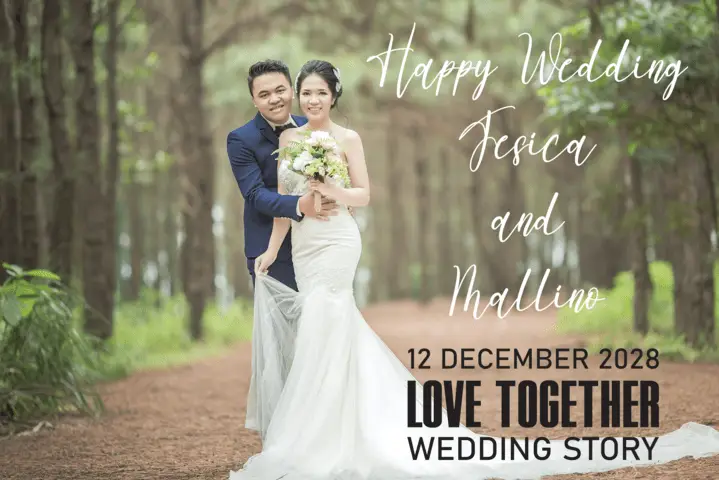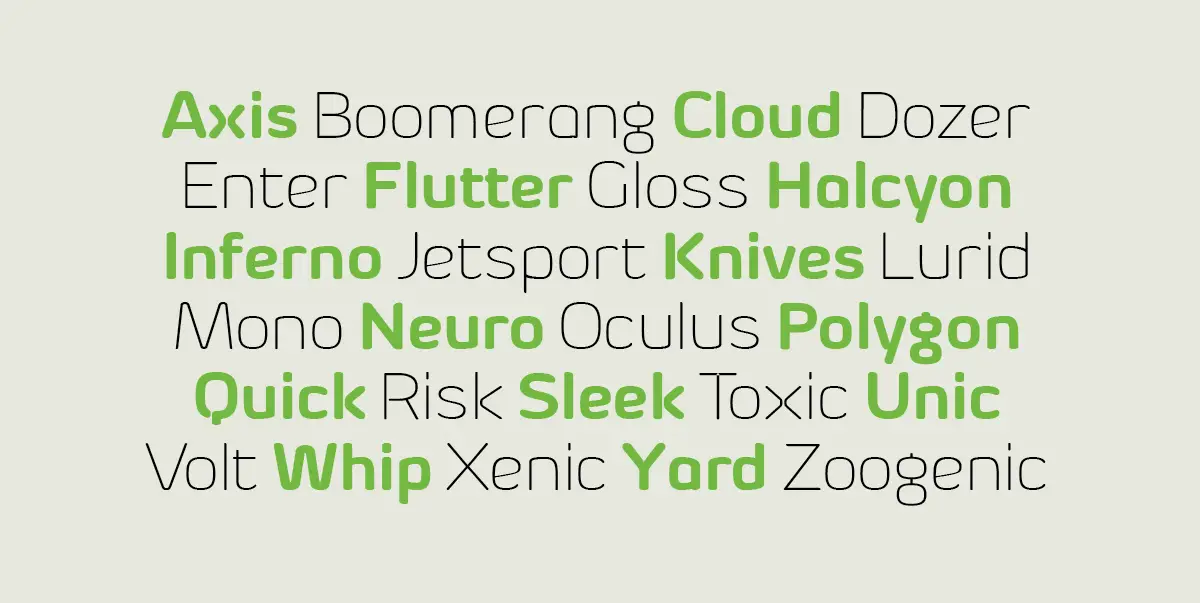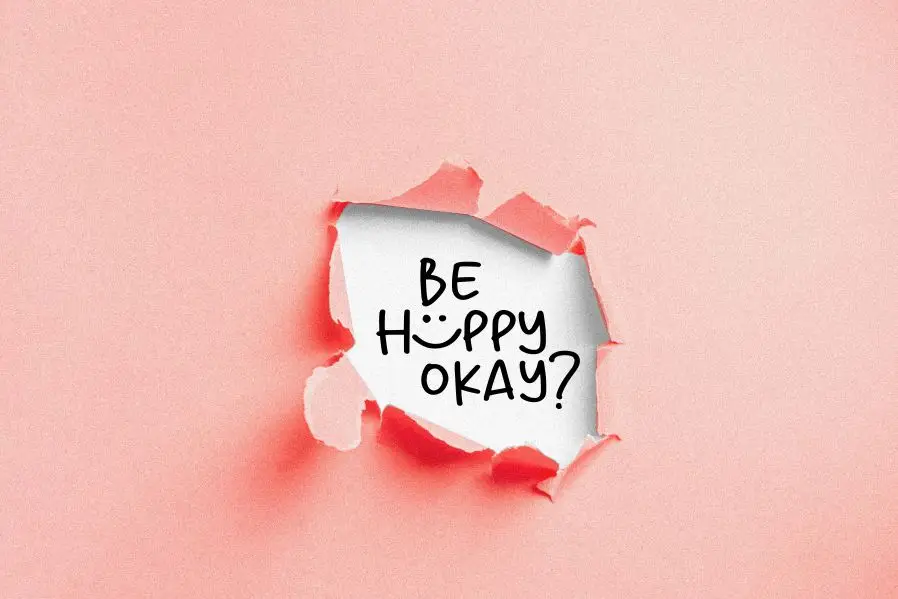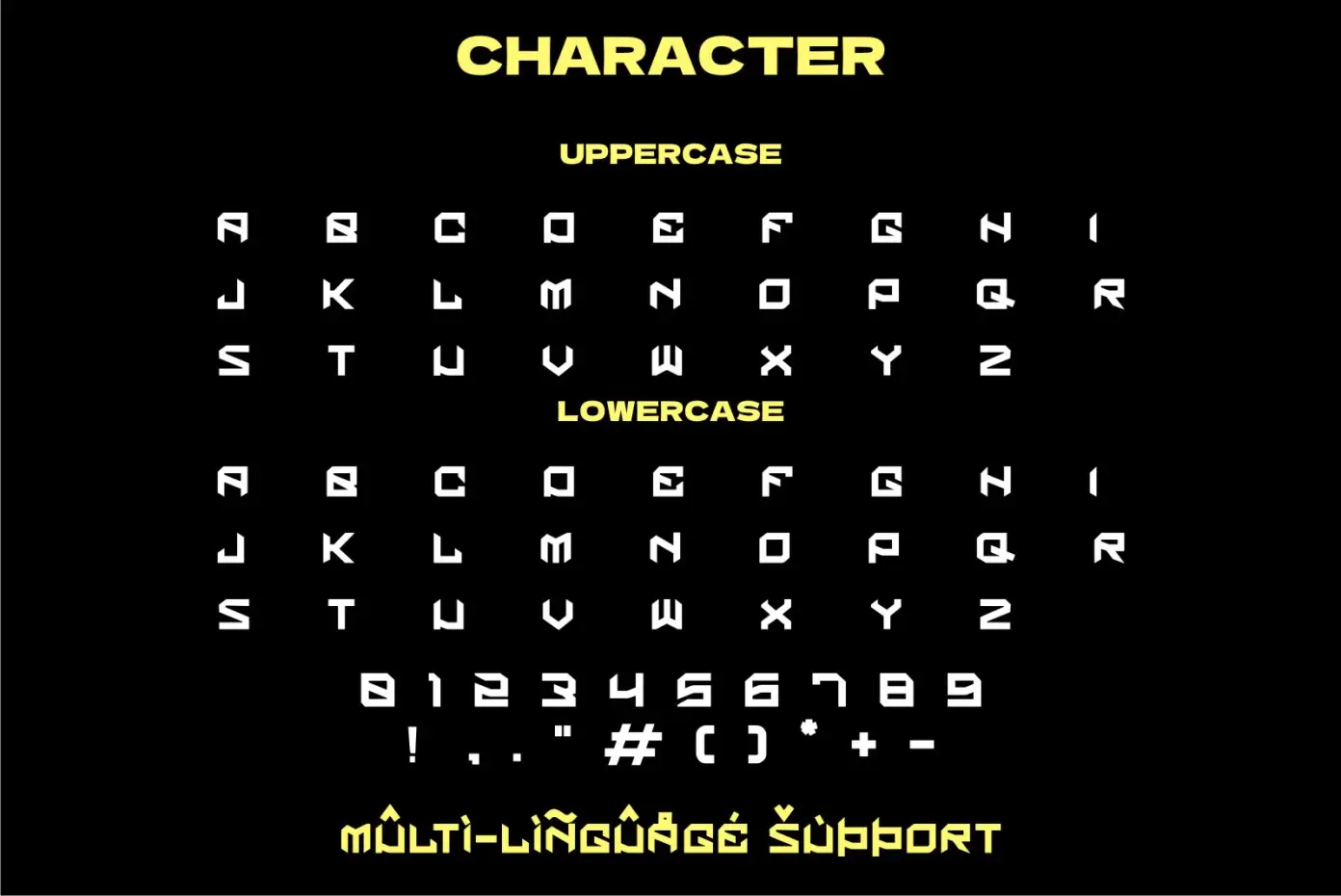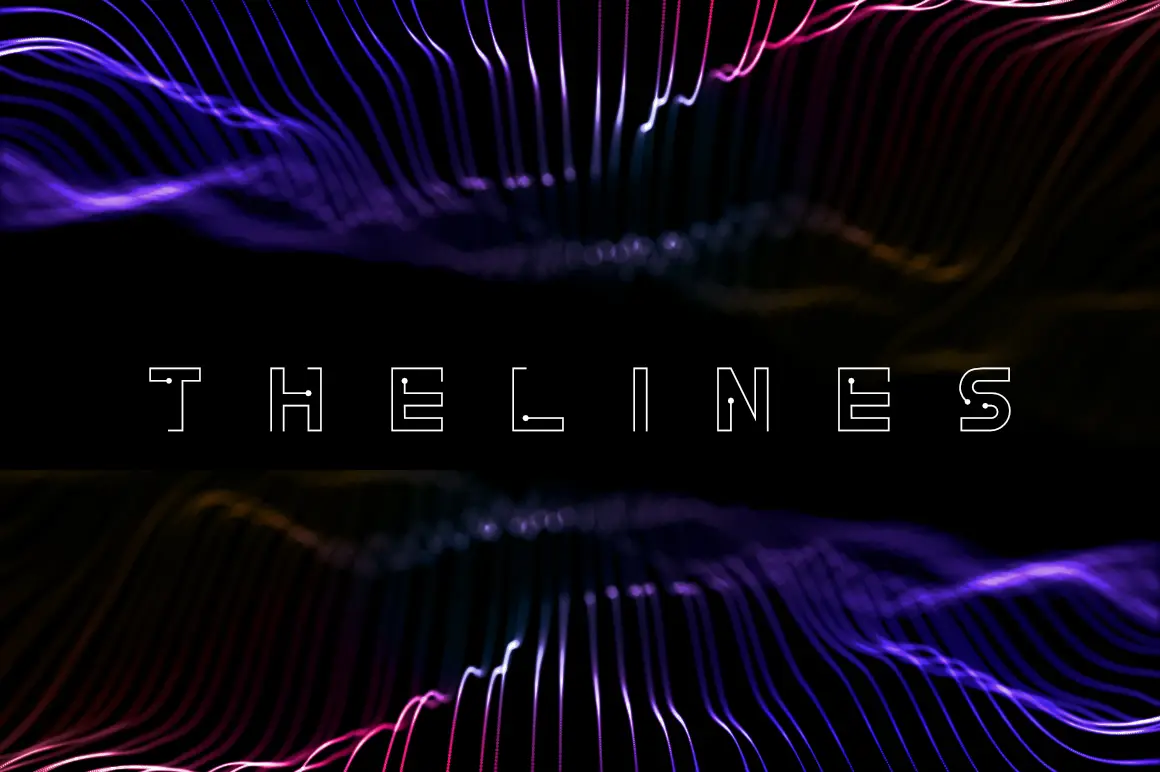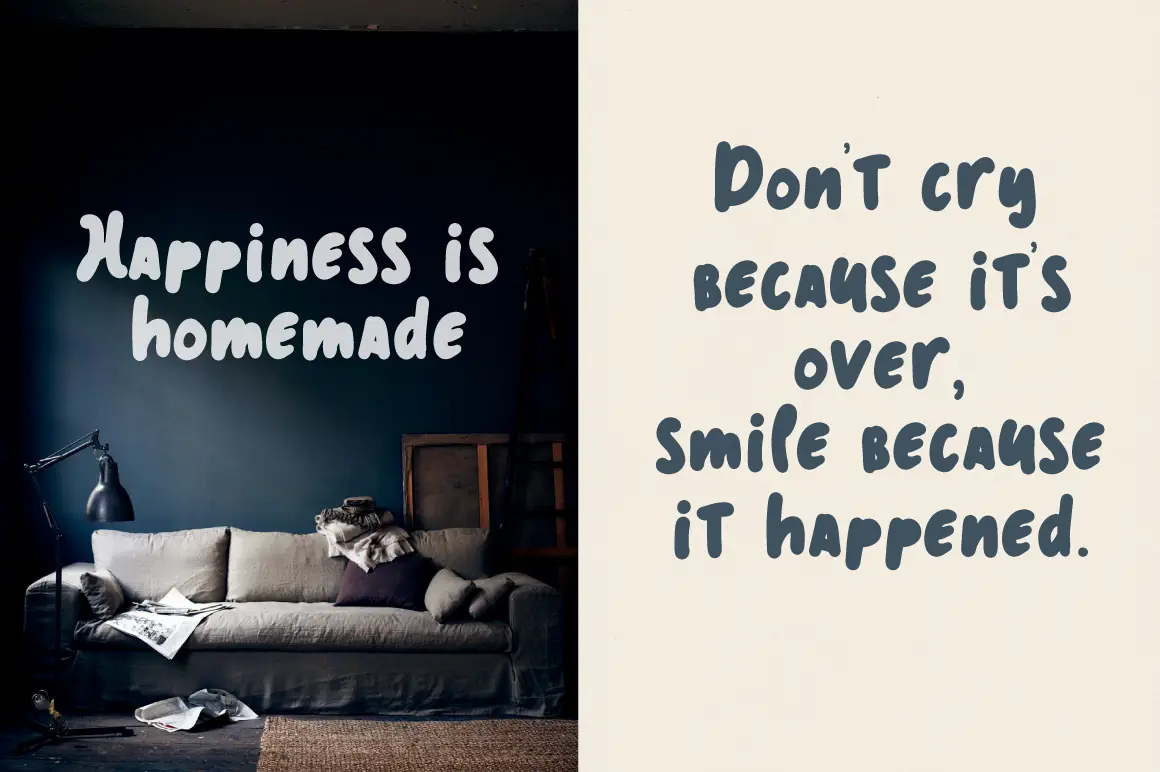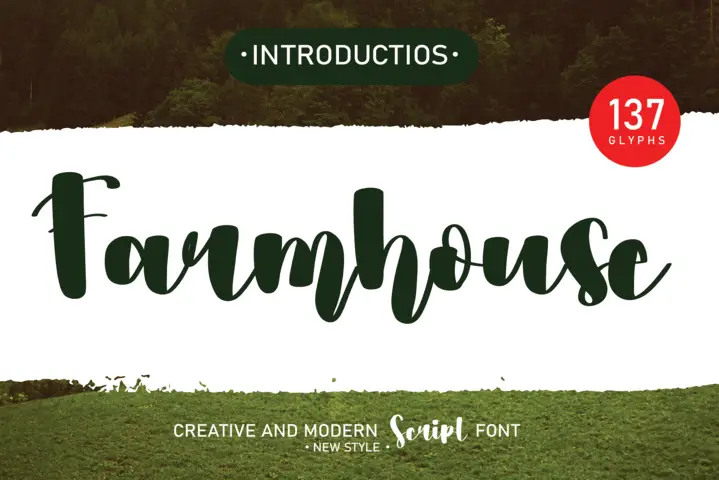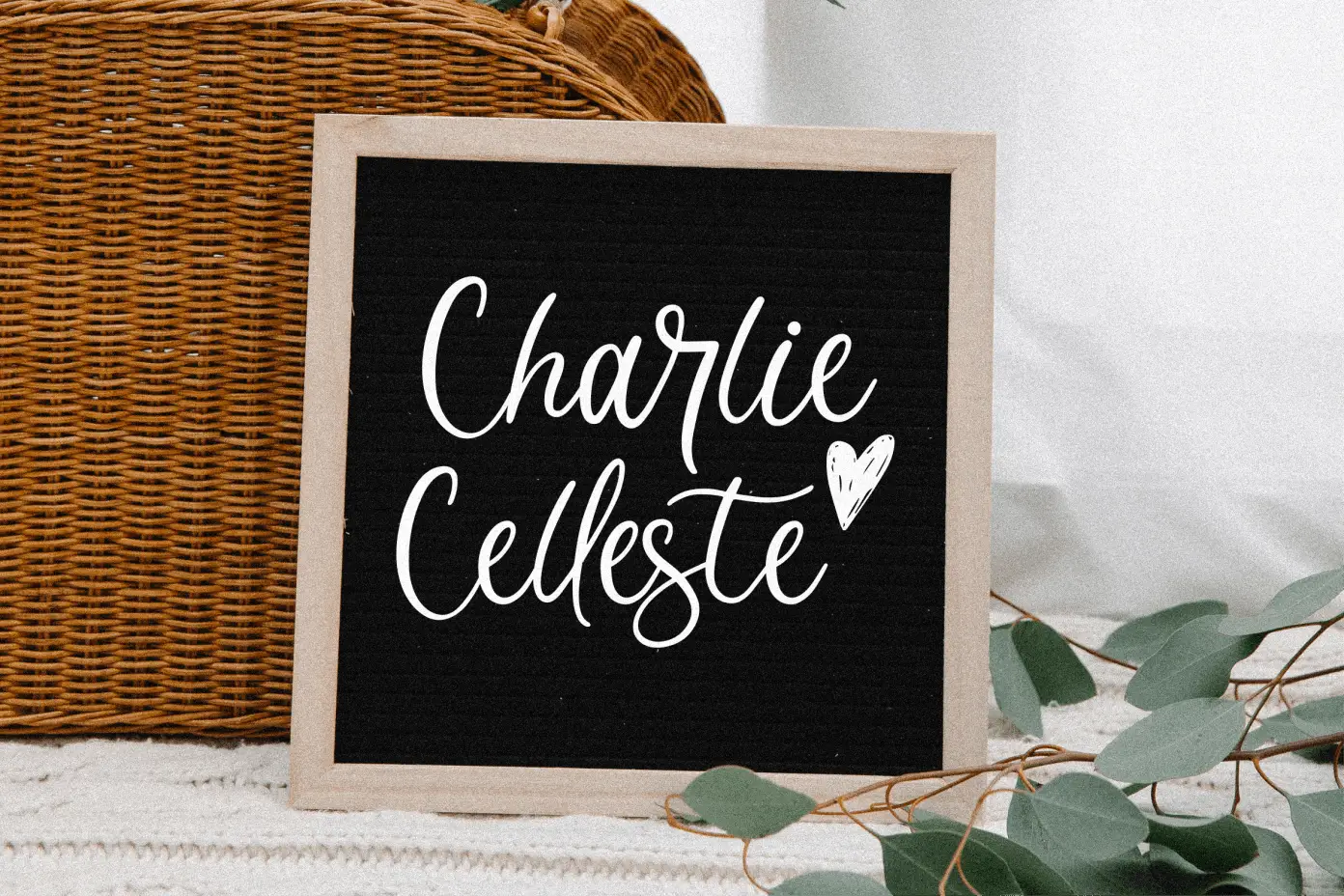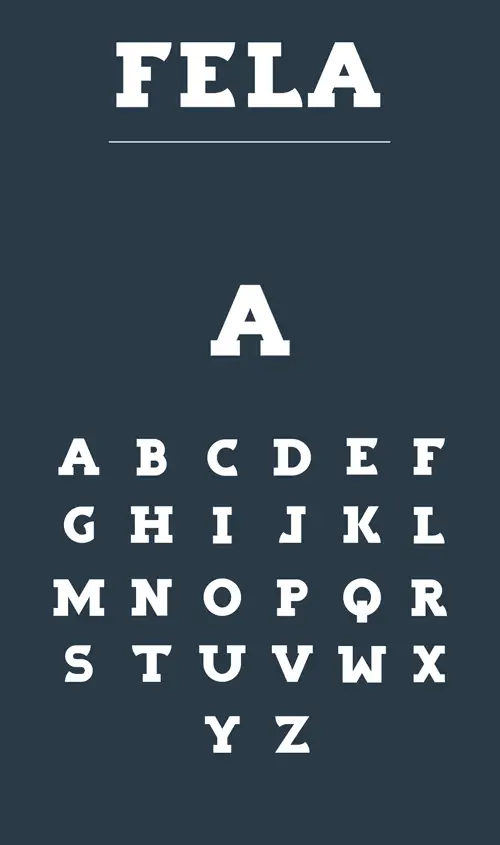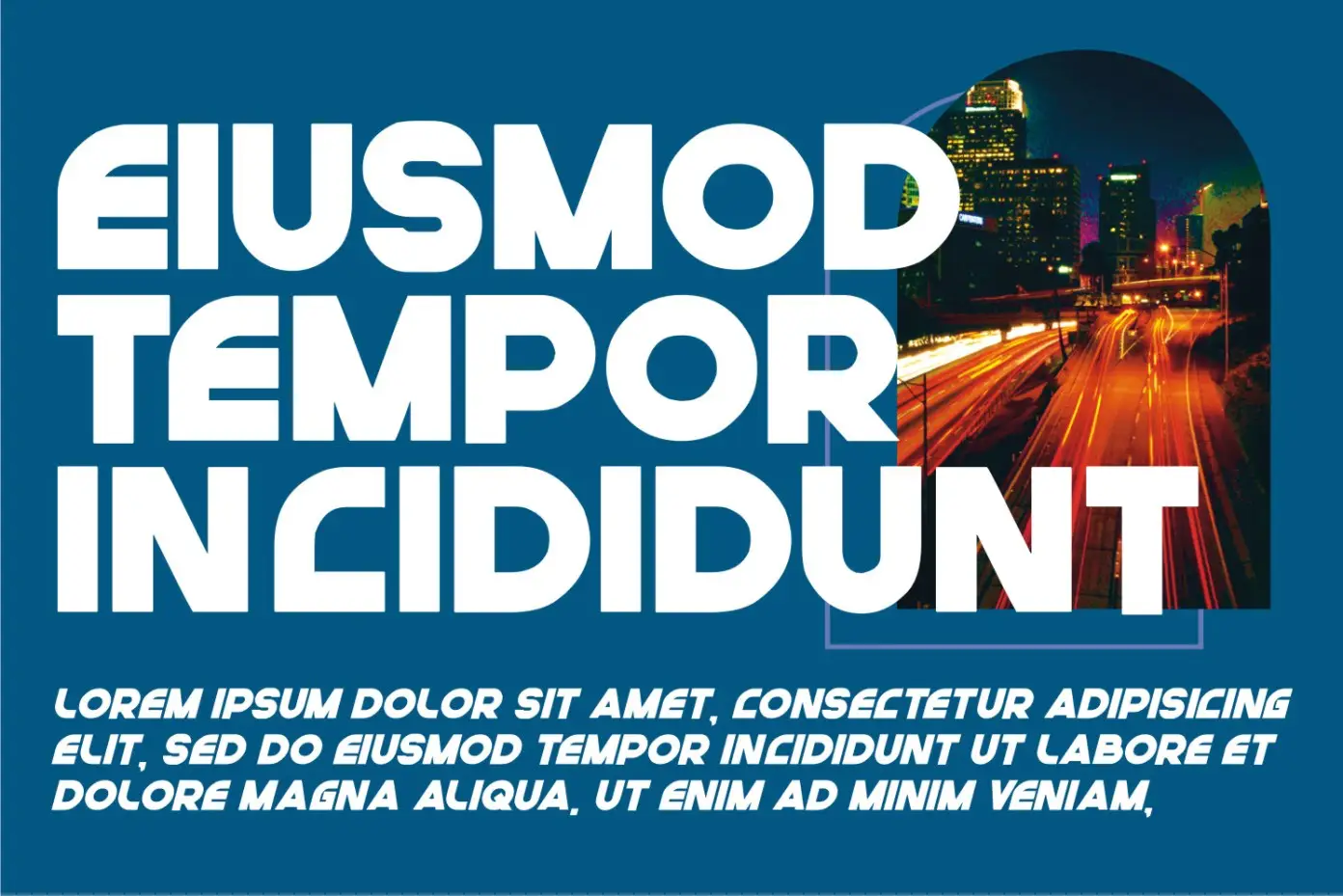
Hey there, creative soul! 🎨✨ Are you ready to give your next design project a serious glow-up? We’ve been diving deep into the latest drop from BrushesPack, and let us tell you—Collection Part 130 is an absolute treasure trove of floral magic, stunning typography, and rustic charm. Whether you’re crafting a cozy autumn invitation or building a bold brand identity, this pack has the tools you need to make something truly unforgettable.
Why Use These Digital Assets & Fonts?
Great design is all about having the *right* tools in your kit. 🚀 This collection mixes vector florals with a powerhouse selection of modern, script, and serif fonts, meaning you can whip up everything from elegant wedding suites to edgy social media graphics in record time. These assets are high-quality, easy to customize, and ready for both personal and commercial projects—so your creativity can run wild without limits!
Top 20 BrushesPack Collection Part 130 Picks
Justine Flowers
Bring on the botanical beauty! 🌸 Justine Flowers serves up high-quality floral illustrations that are perfect for adding a touch of elegance and charm to any project—think invitations, wall art, or branding.
Hey Autumn
🍂 Cozy vibes incoming! Hey Autumn is packed with warm fall elements—leaves, pumpkins, and seasonal graphics—that capture the magic of the harvest season. Perfect for autumn-themed prints and social media!
Grancino Sans Serif Font
Clean, modern, and oh-so-readable! ✨ Grancino Sans Serif offers multiple weights and a sleek aesthetic that’s a dream for branding, web design, and print—simple, flexible, and always on point.
Laura Rose Font
Elegance meets readability! 💖 The Laura Rose Font is a delicate script typeface that adds a soft, romantic touch to wedding designs, logos, and invitations. It comes in OTF and TTF formats for total convenience.
Kupanter Display Font
Make a bold statement! 🚀 Kupanter Display flaunts a unique, contemporary design with uppercase, lowercase, and numerals. It’s your go-to for logos, posters, and eye-catching headlines.
Exwayer Display Font
Bold, beautiful, and built for impact! 💥 Exwayer Display Font features striking character shapes and multiple weights—ideal for making your brand or headline truly stand out.
Butterfly Script Font
Flowing, fluid, and utterly elegant! 🦋 Butterfly Script brings a sophisticated cursive style to your projects. Perfect for invitations, branding, and anything needing a touch of grace.
Galins Serif Font
Timeless and readable—the perfect combo! 📖 Galins Serif combines classic elegance with modern versatility. Use it for logos, print materials, and user interfaces with total confidence.
Enger Font
Modern elegance at its finest! 🌟 Enger Font blends contemporary style with classic charm. Available in multiple weights, it’s perfect for branding, web, and print projects alike.
Futural Display Font
Geometry meets modern design! 🔷 Futural Display boasts bold, geometric shapes and multiple weights. It’s a top pick for futuristic logos, headlines, and branding that demands attention.
Cocha Serif Font
A classic beauty with a contemporary edge! 📜 Cocha Serif combines elegance and readability. Great for editorial designs, branding, and logos where you need a polished, professional look.
Francis Nouveau
Art Nouveau lovers, rejoice! 🖼️ Francis Nouveau is a high-resolution design asset dripping with elegance. Adaptable for both print and digital, it adds instant artistry to any project.
Fela-Font
Versatility is the name of the game! 🎭 Fela-Font mixes modern and classic styles seamlessly. With multiple weights, it works beautifully for branding, logos, and even body text.
Family Bloom
Capture the warmth of togetherness! 👨👩👧👦 Family Bloom is a high-resolution asset perfect for invitations, greeting cards, and social graphics. It’s easy to customize and full of heart.
Exclusive Serif Font
Sophistication made simple! 💎 Exclusive Serif Font offers classic serif styling with multiple weights and special ligatures. It’s a refined choice for high-end branding and print.
Farmhouse Script Font
Rustic charm meets beautiful handwriting! 🏡 Farmhouse Script has a natural flow and stylistic alternates that make your branding feel personal, warm, and inviting.
Farmstead Script Font
Handmade feel, professional polish! 🖊️ Farmstead Script features elegant curves and flowing lines. Perfect for invitations, packaging, and rustic branding projects.
Brush Font
Get that hand-painted look! 🎨 Brush Font is a stylish, expressive typeface that adds a personal, artistic touch to branding, logos, and promotional materials. Supports multilingual characters too!
Chicola Smoothy Handwritten Font
Smooth as silk! ✍️ Chicola Smoothy mimics natural handwriting with beautifully flowing curves. Great for personal projects, greeting cards, and adding a human touch to digital designs.
Byom Font Family